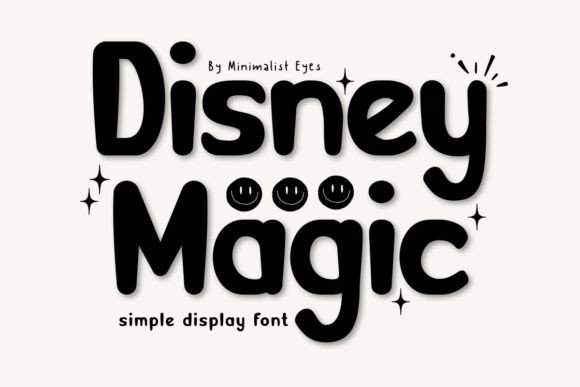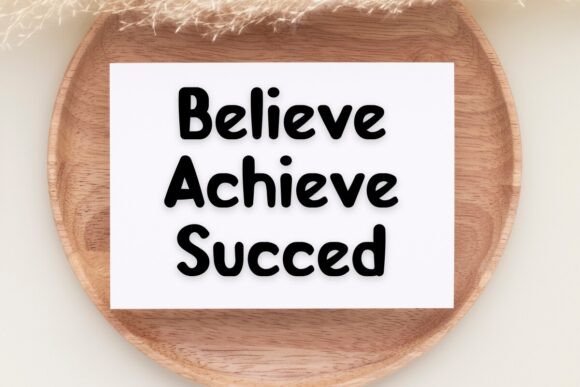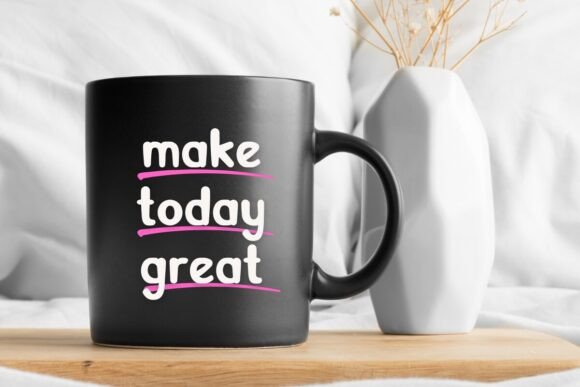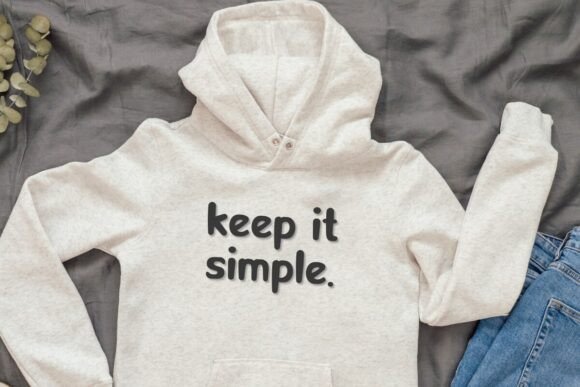
Disney Magic Font: A Cute Display Font for Cricut & Crafts
About the Disney Magic Font
From logos to headlines, the Disney Magic Font is the perfect choice for making a lasting impression. Disney Magic is a fun, trendy, and cute Display font perfect for crafting, branding, decorating, farmhouse designs, shirts, SVG designs, blogs, logos, invitations, frames, book covers, stationery, marketing, magazines, and more! Fall in love with its incredibly versatile style and use it to create spectacular designs!
Disney Magic Font excels as a display font for headlines, logos, and short, impactful text within branding projects aimed at a younger demographic or those emphasizing whimsy and charm. It’s ideal for packaging, posters, and social media graphics where its playful nature adds visual appeal. However, its decorative style is less suitable for body text or UI elements requiring high readability.
This font’s personality is undeniably fun and friendly. For effective pairings, consider balancing its playful energy with a clean sans-serif like Open Sans or Lato for body copy, or a more sophisticated serif such as Merriweather for a touch of elegance in supporting text.
A geometric sans-serif like Montserrat would also provide a strong contrast, creating a dynamic visual hierarchy. Avoid pairing it with other highly decorative fonts, as this might overwhelm the design and compromise readability.